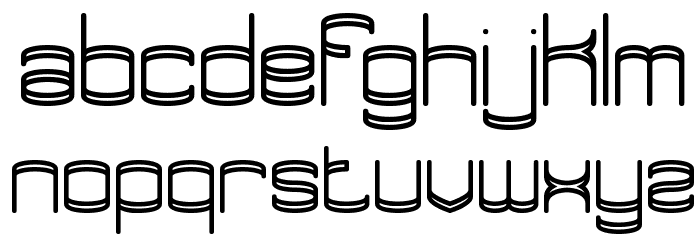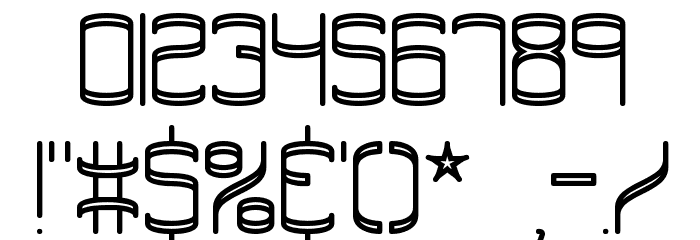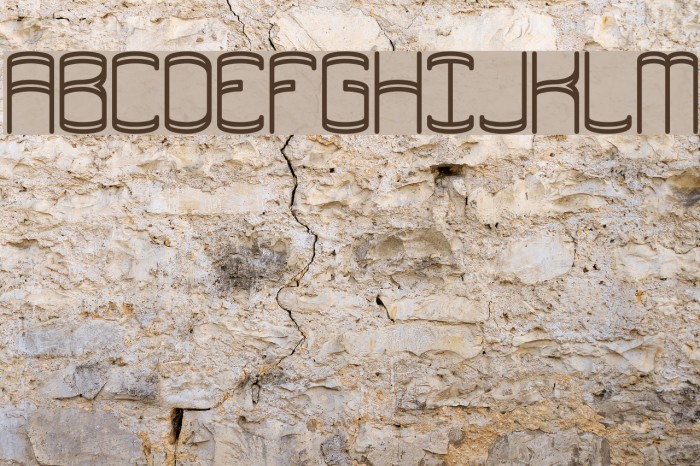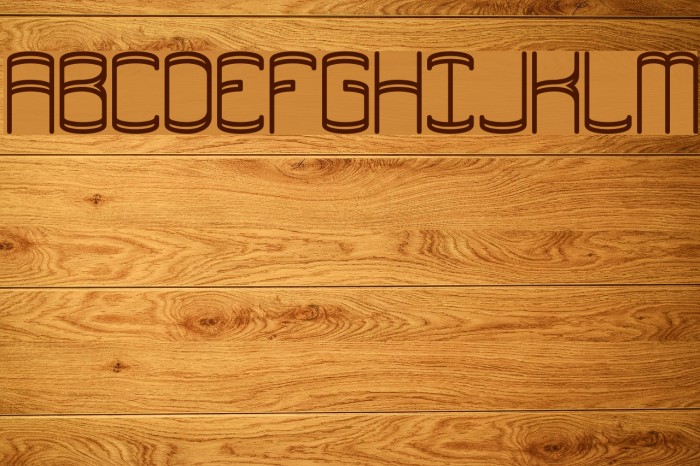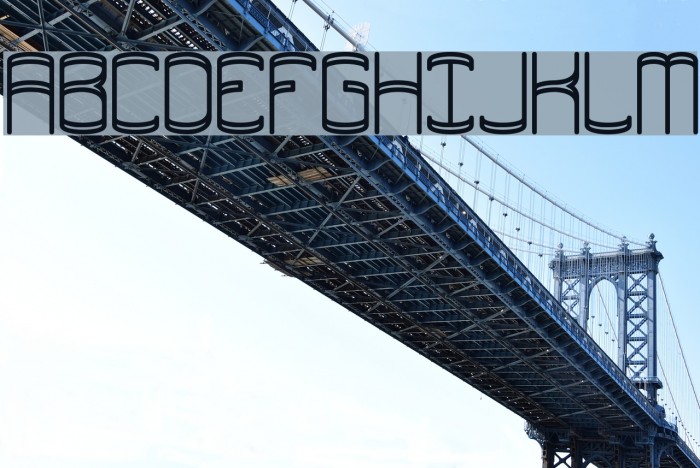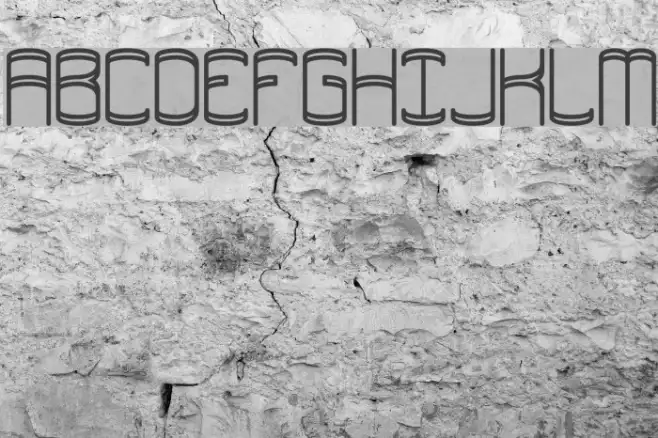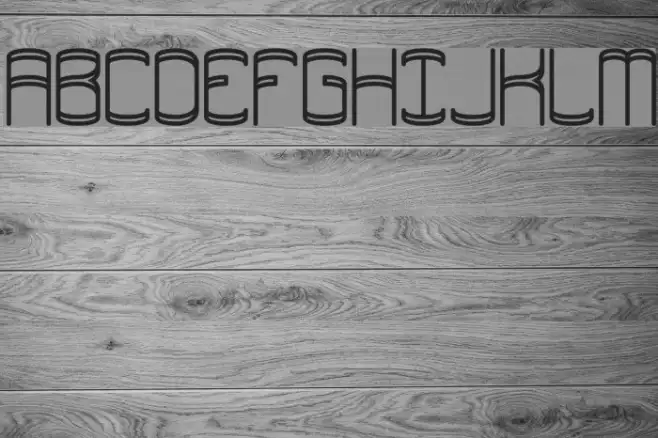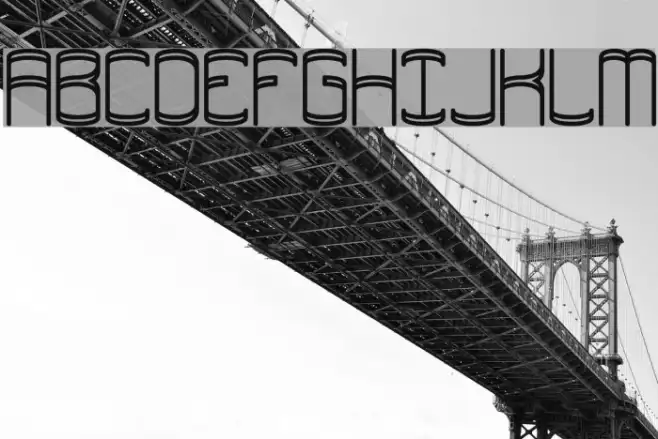
Enthuse BRK Font
This font features a unique, futuristic design with rounded edges and a geometric structure. The characters are outlined, giving them a hollow appearance that adds a modern and sleek aesthetic. The uppercase and lowercase letters maintain a consistent style, with elongated forms and smooth curves. Numbers and special characters follow the same design principles, ensuring uniformity across all glyphs. This font's distinct style makes it stand out, offering a contemporary and innovative look suitable for various creative applications.
A futuristic, geometric font with rounded, outlined characters.
- Proposed Projects: Ideal for sci-fi themed designs, tech branding, modern posters, and digital media projects.